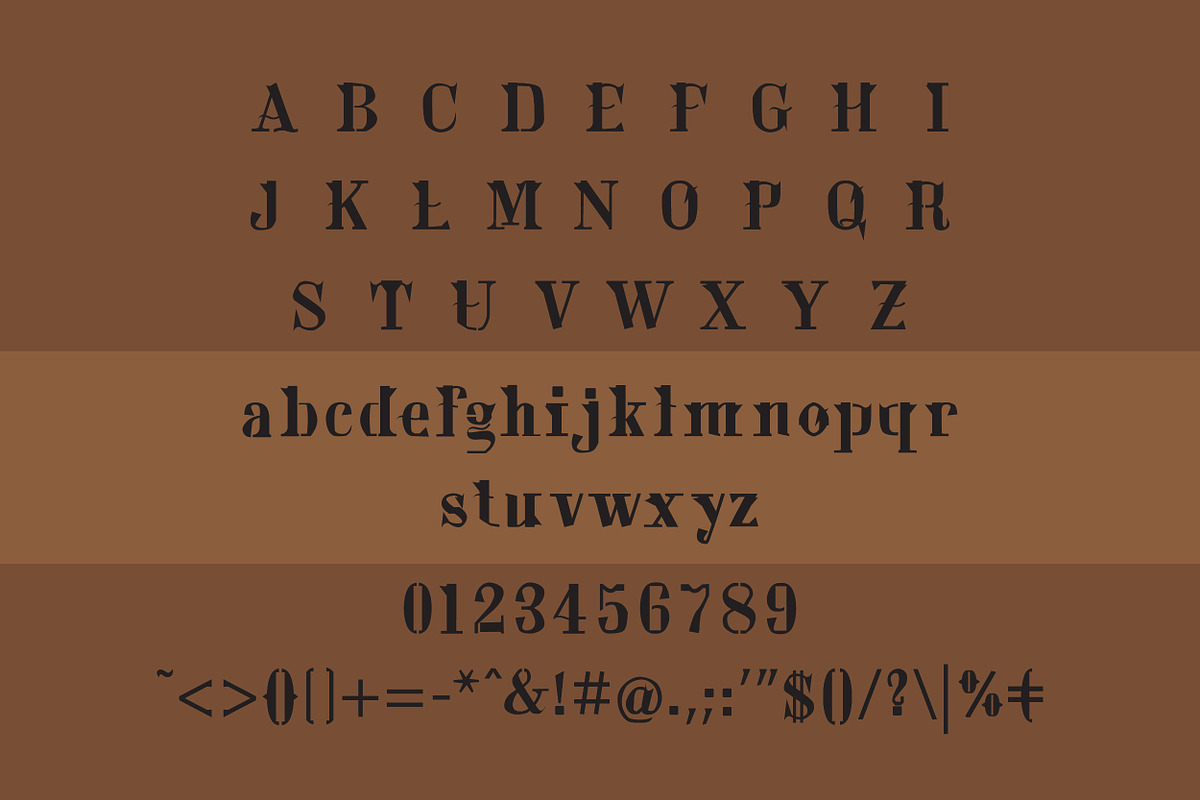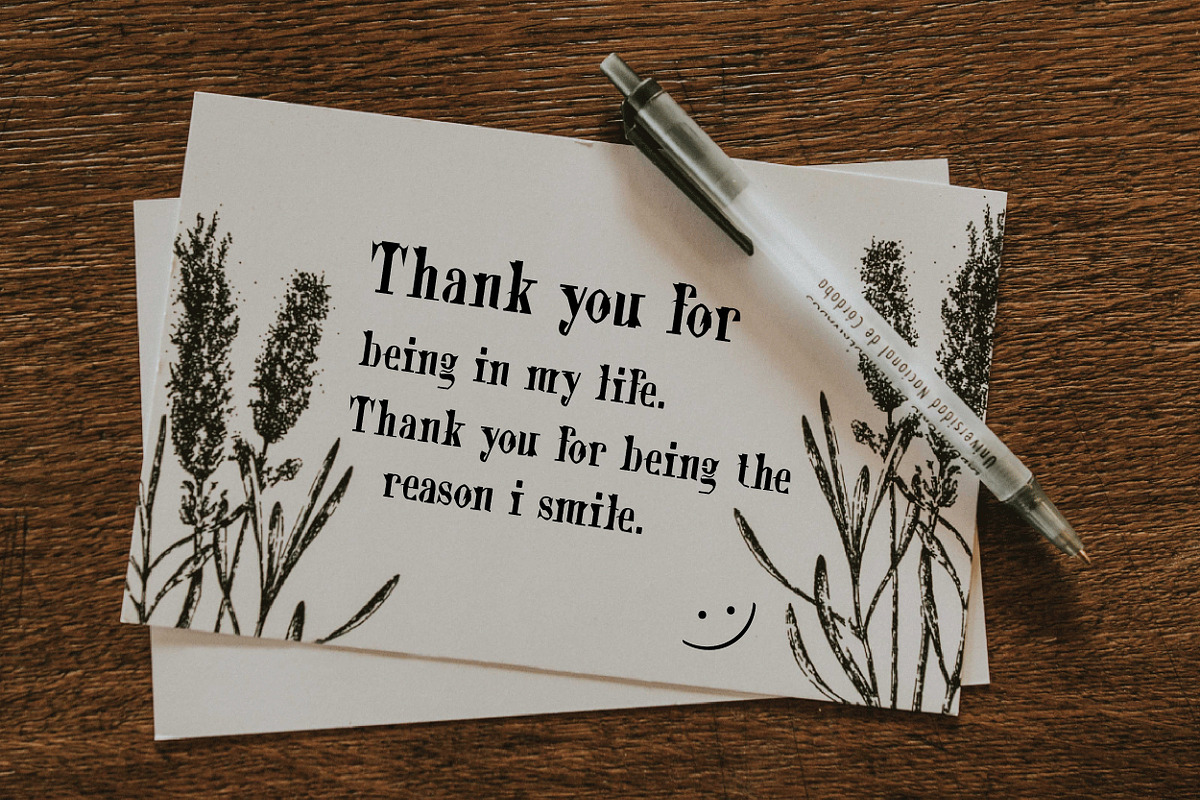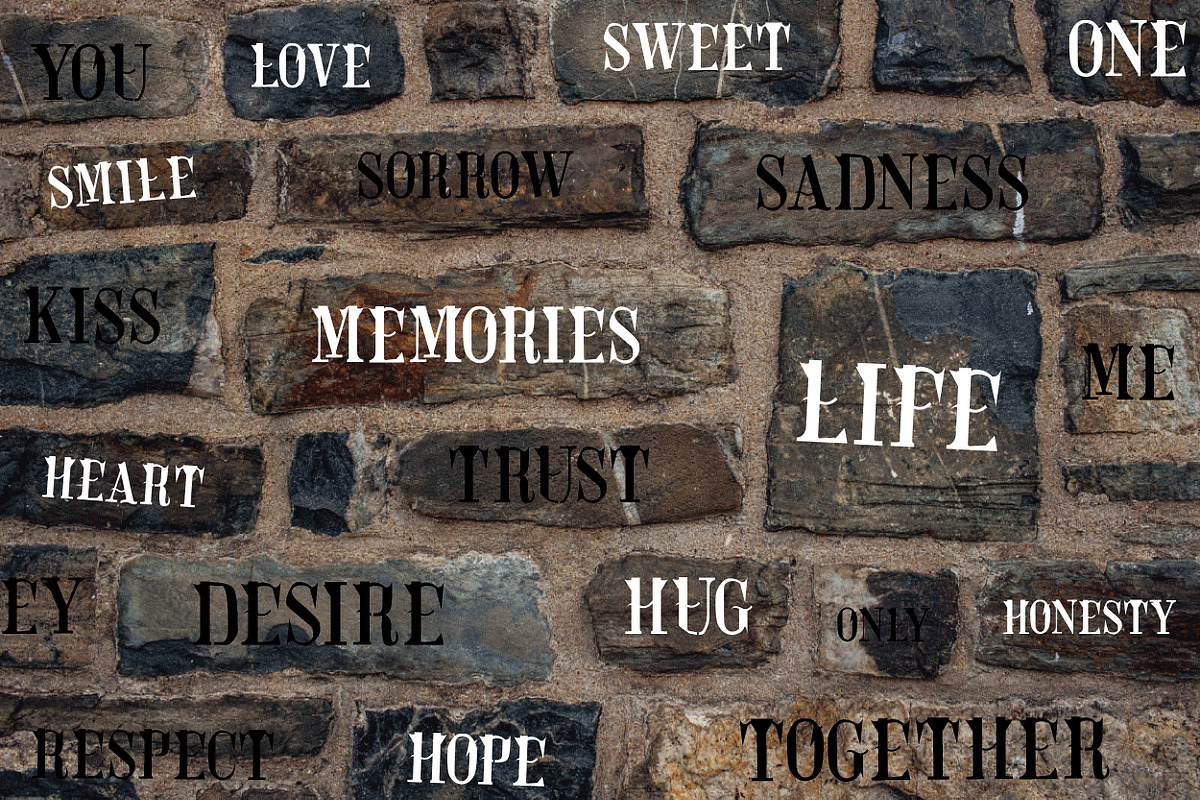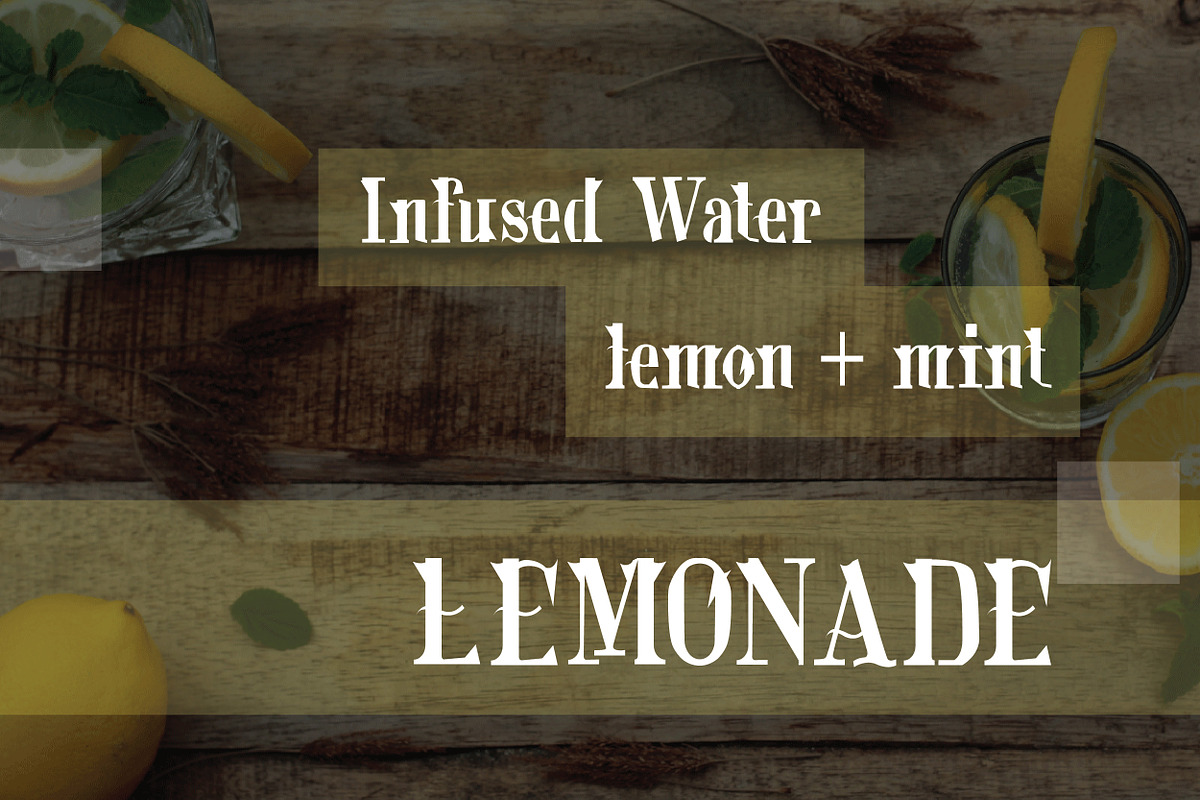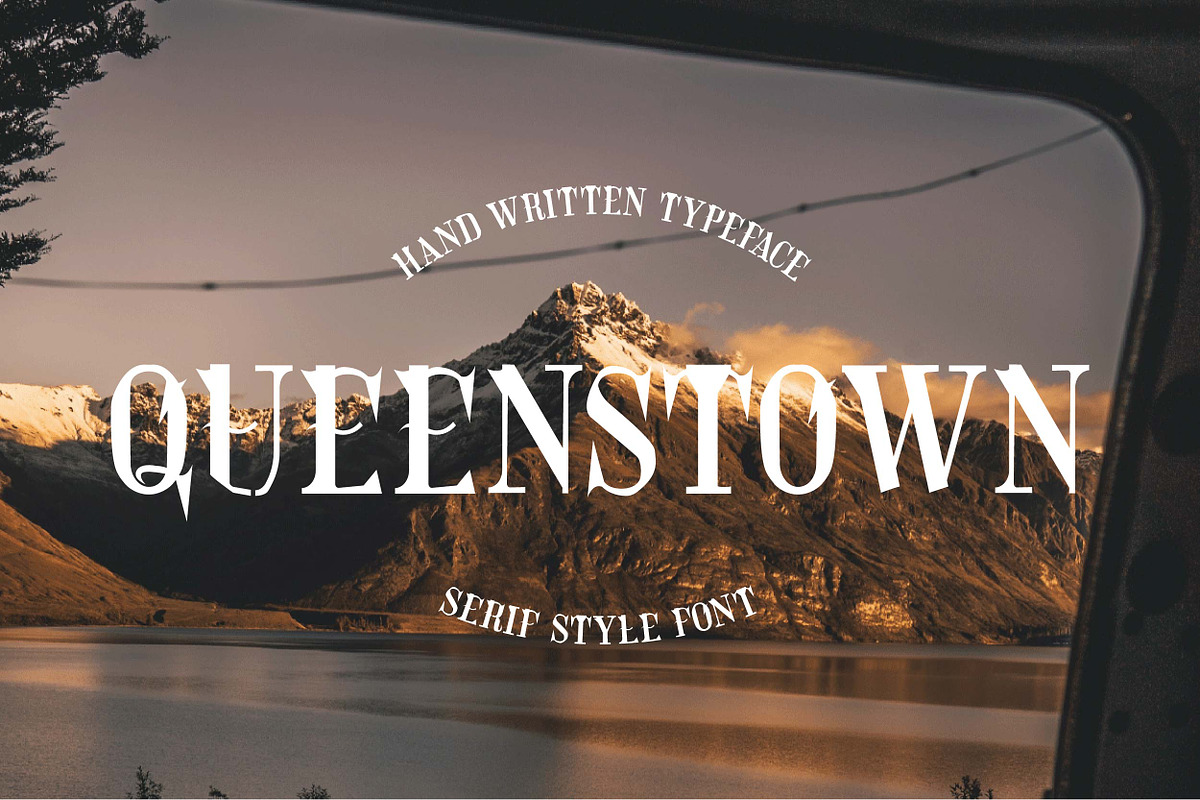
Queenstown - Serif
Queenstown is a Serif font elegant with combining a variety of styles. Suitable for logo, greeting cards, posters, name card, stationary, design title, blog header, art quotes, illustration typography, or any purpose to make our art/design project look cool and trendy.